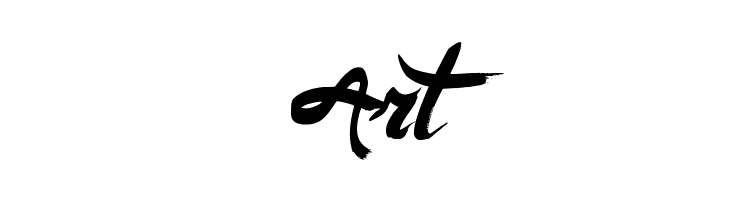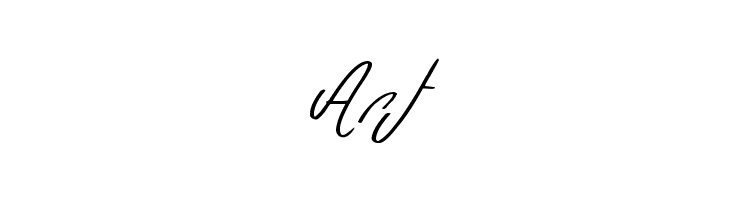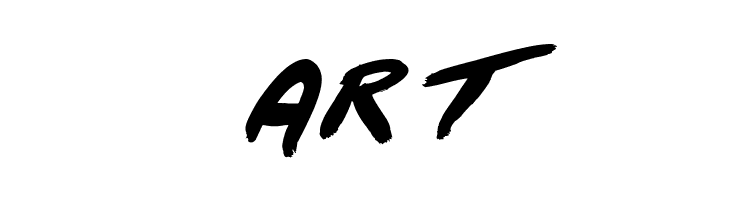
A classic calligraphic font with elegant, flowing strokes and refined serifs.
An elegant script font with flowing, cursive strokes and decorative flourishes.
A bold, brush-style font with dynamic strokes and expressive character.
A fluid, cursive script font with elegant, connected letters.
A decorative script font with elegant, flowing curves and intricate details.
A bold, dynamic script font with fluid, brush-like strokes.
An elegant script font with flowing curves and sophisticated style.
An elegant script font with flowing, cursive style and sophisticated flourishes.